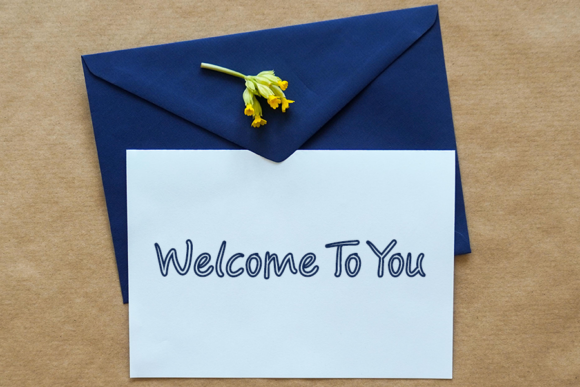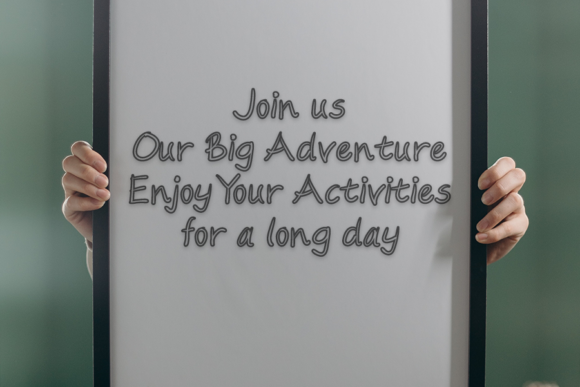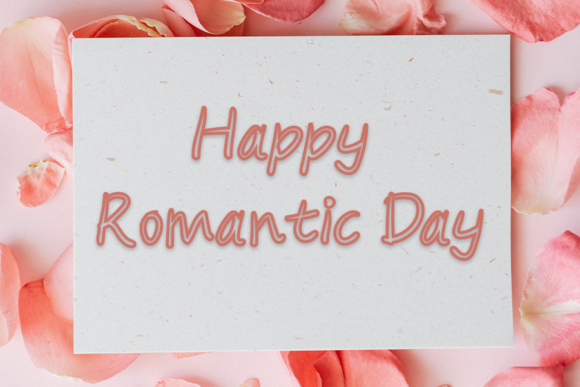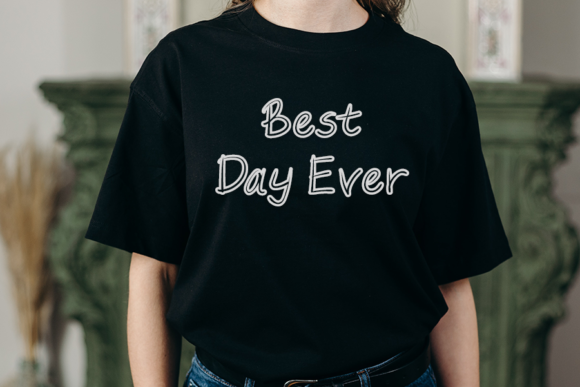
Introduction to Smart Holiday Font
Have you ever been working on a creative project, pouring your heart and soul into it, only to realize that it’s missing that special something? That’s where the Smart Holiday Font comes in – a stylish and modern display font that can elevate your designs and make them truly shine.
With its trendy look and feel, the Smart Holiday Font is perfect for writing joyful and fun letters that are sure to put a smile on people’s faces. Whether you’re creating a festive holiday card, a birthday invitation, or a promotional poster, this font is an excellent choice to add a touch of personality and whimsy to your design.
Key Features of Smart Holiday Font
- High-quality, vector-based design, ideal for various creative projects
- Designed with a unique, festive aesthetic, perfect for holiday-themed projects and designs
- Supports a wide range of languages, ensuring versatility in its applications
- Resolution-independent, ensuring crisp and clear display at any size or resolution
Honest Review: Smart Holiday Font
I recently stumbled upon the Smart Holiday Font while searching for a unique design resource for my latest creative project. I was pleasantly surprised by the high quality of this font and its suitability for festive designs.
- High-quality design: The font is well-designed and visually appealing, making it perfect for adding a touch of elegance to your designs.
- Transparent background: This feature allows for easy customization and combination with other design elements.
- Limited character set: The font may not include a comprehensive set of characters, which could be a limitation for some designers.
- No bold or italic variations: While the font is suitable for most design needs, it lacks bold and italic variations, which could be useful for emphasis.
Overall, I’m impressed with the Smart Holiday Font and would recommend it to designers looking for a high-quality, free design resource for their creative projects.
How to Use Smart Holiday Font
The Smart Holiday Font is a high-quality design resource perfect for your next creative project. With a transparent background, this font is versatile and can be used in various applications.
Tips for Getting the Most Out of the Smart Holiday Font
Use the Smart Holiday Font in combination with other design elements to create a cohesive and visually appealing design. Experiment with different font sizes, colors, and styles to add depth and interest to your design.
The Smart Holiday Font is perfect for creating invitations, greeting cards, and other holiday-themed designs. You can also use it to add a festive touch to your social media graphics, blog posts, and other online content.